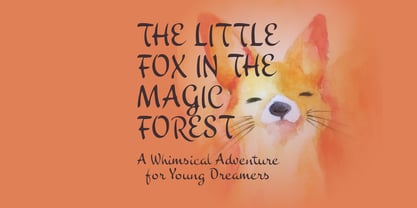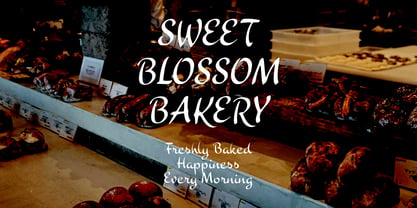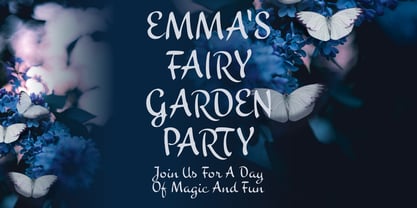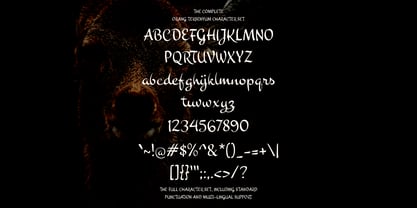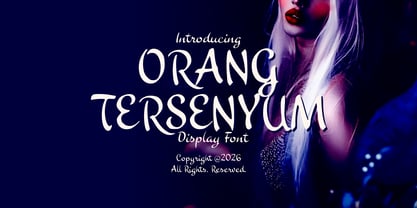
Orang Tersenyum Script
Die Schriftfamilie Orang Tersenyum Script wurde von Wahyu Eka Prasetya, Mei Suseno entworfen und von Mei Suseno veröffentlicht. Orang Tersenyum Script enthält 2 Stile und Familienpaketoptionen. Mehr über diese Familie
Orang Tersenyum is a playful hand-drawn display font that brings warmth, creativity, and personality to every design. Featuring organic letterforms with a whimsical touch, this font is perfect for projects that need a cheerful and friendly feel. Whether you're designing children's books, playful branding, greeting cards, posters, packaging, social media graphics, or DIY crafts, Orang Tersenyum adds a unique handmade charm that instantly captures attention. Its expressive style makes it ideal for creating memorable headlines, logos, invitations, and creative typography with a fun, lighthearted character.